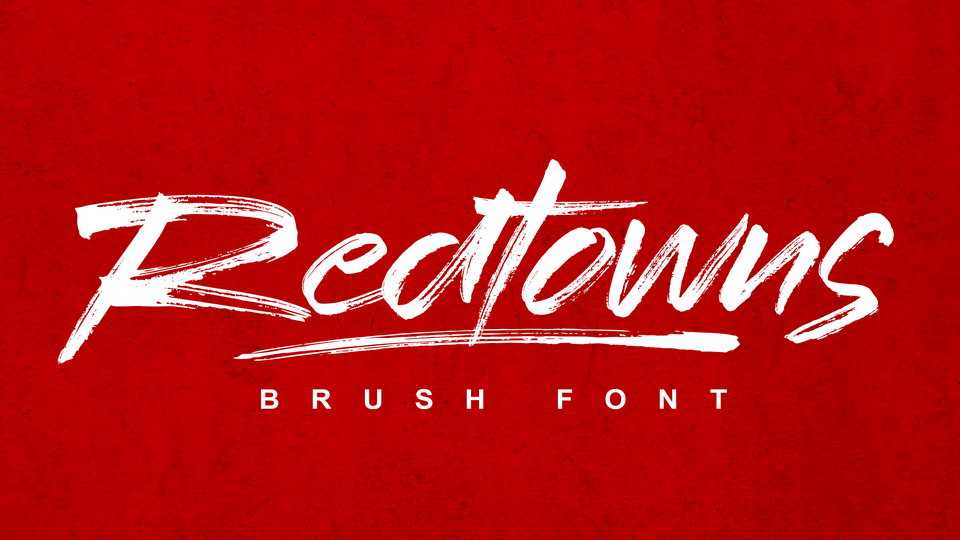
Download Redtowns font, an amazing hand lettered typeface that made manually using brush pen and paper. This font is great for nowdays project like clothing, signature, watermark, photography, poster, branding.
Designer: Lettersiro Studio